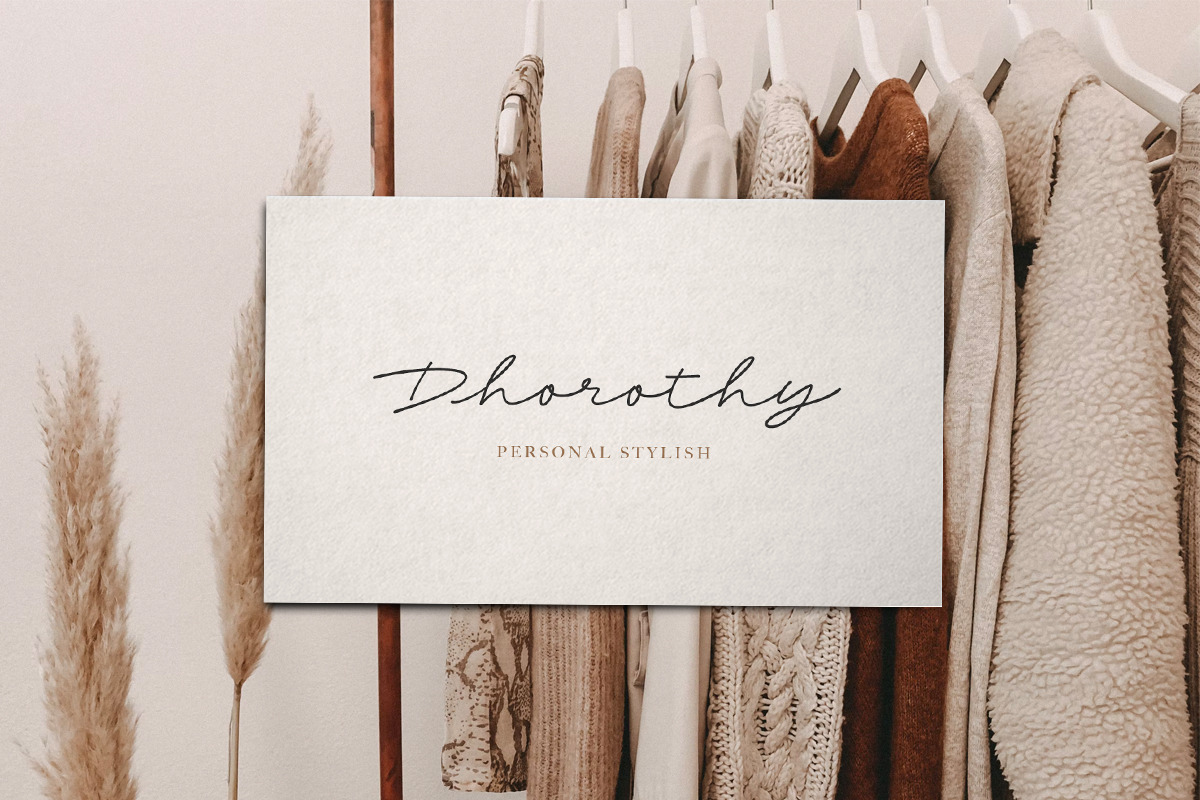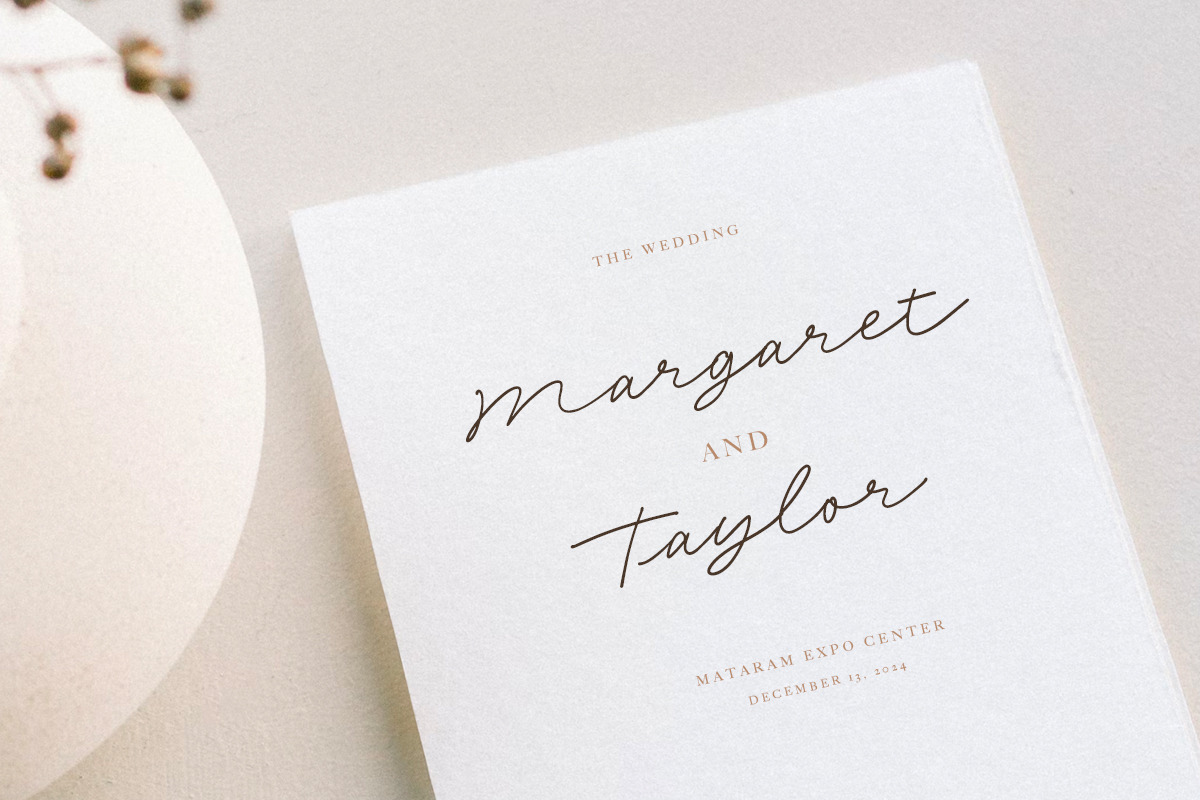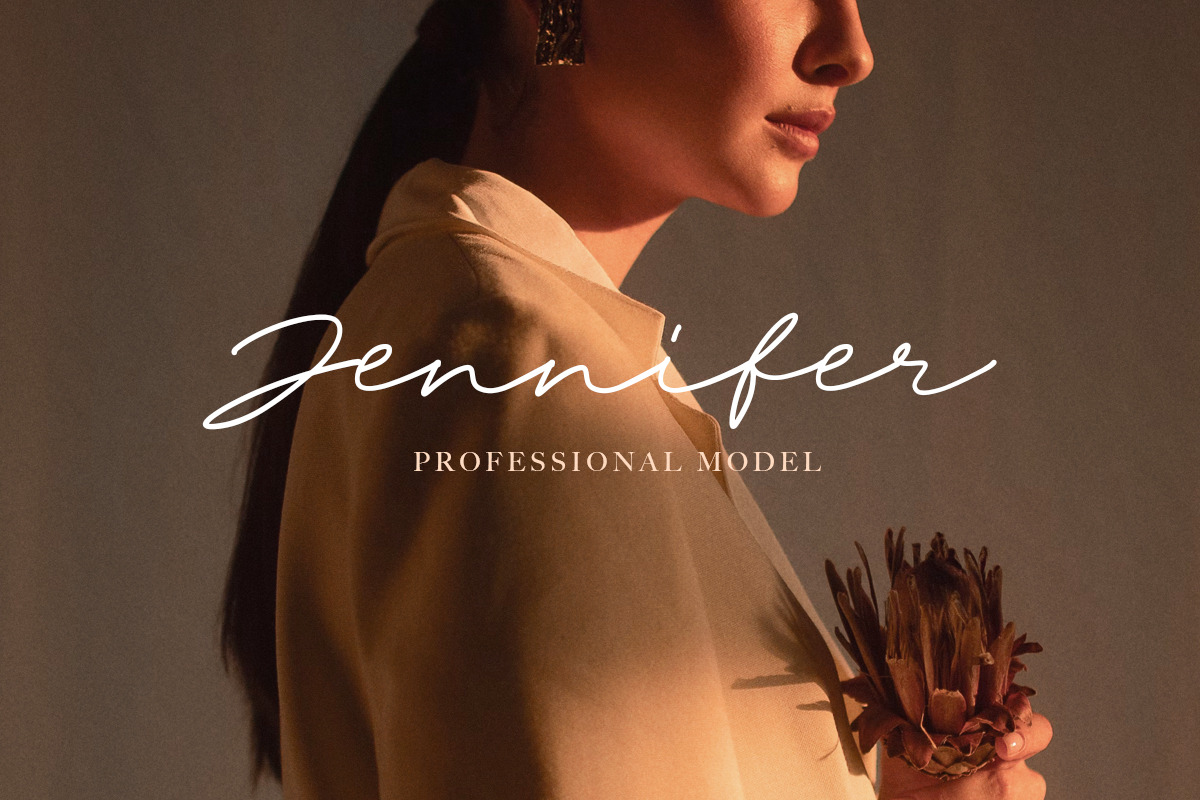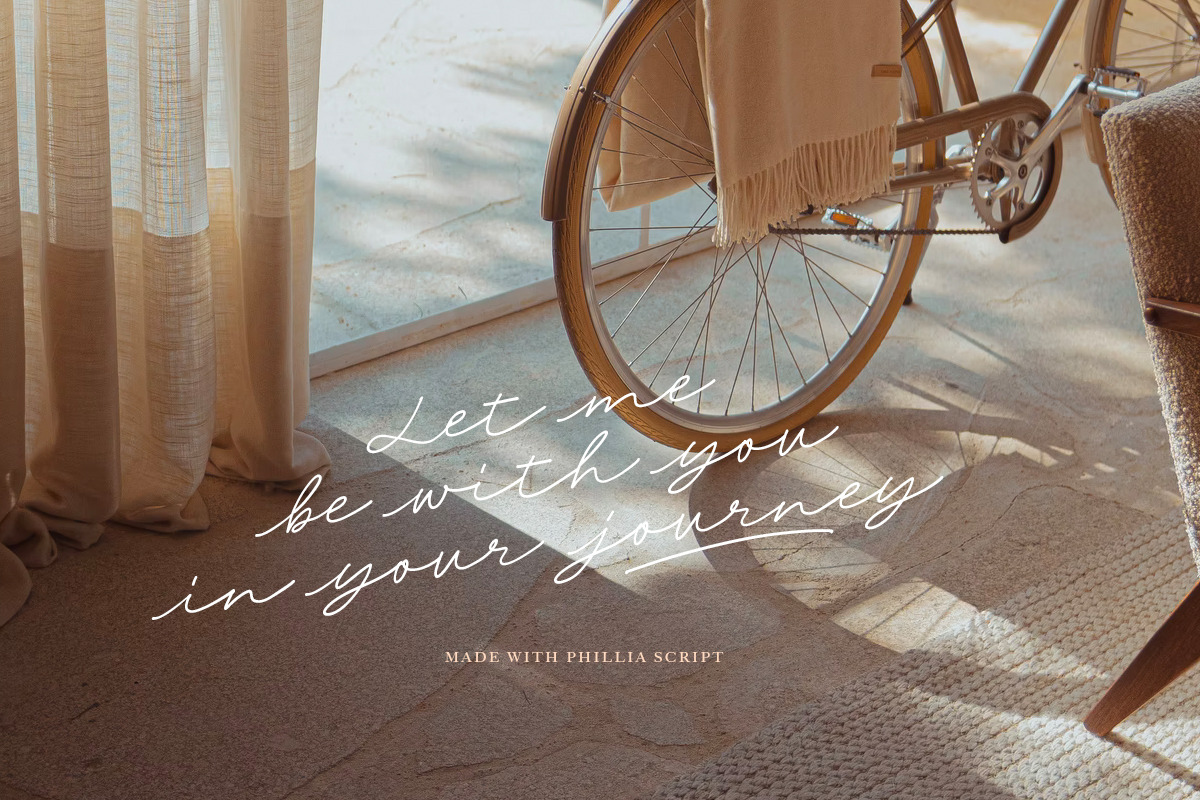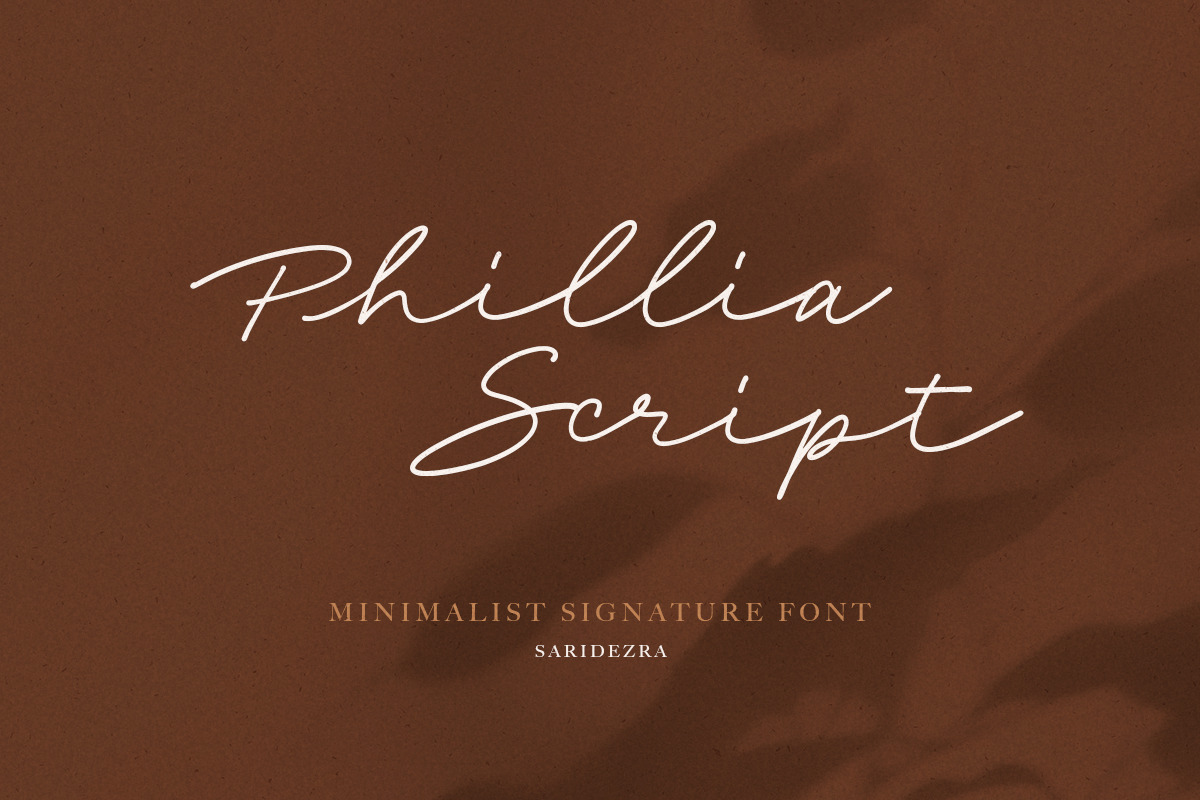
Phillia - Minimalist Signature Font
Introducing, Phillia, a minimalist signature font!
Phillia is minimal and essential signature script that you can use for any purpose such as your own customized signature, logo design, even quotes. You also can use this font for pairing to another font like sans and script. For additional purpose, this font also contains contextual alternates that you can activated from opentype features in Adobe . This font is also support multi language.
To add the line in under the text, type underscore + number (from 1 to 3). Or copy Some_3thing in preview bellow..